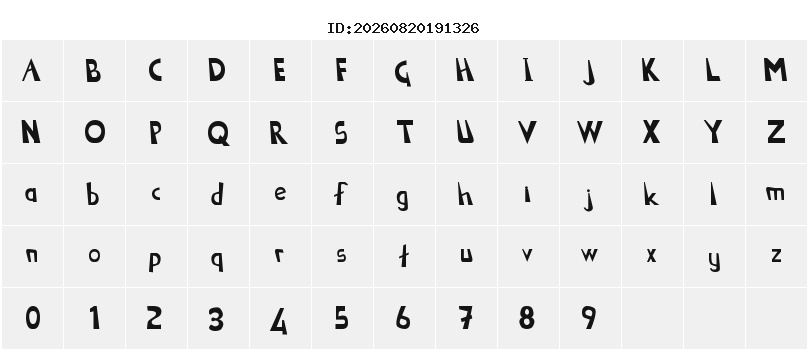
• Font Name: Sekooo
• Full Font Name: Sekooo
• Version: Version 1.00 January 18, 2014, initial release
• Designer: Serkan Dilemek
About Sekooo.otf
Sekooo.otf is a modern, elegant sans-serif font designed for ultimate readability and visual harmony. Perfect for branding, headlines, web design, and print materials.